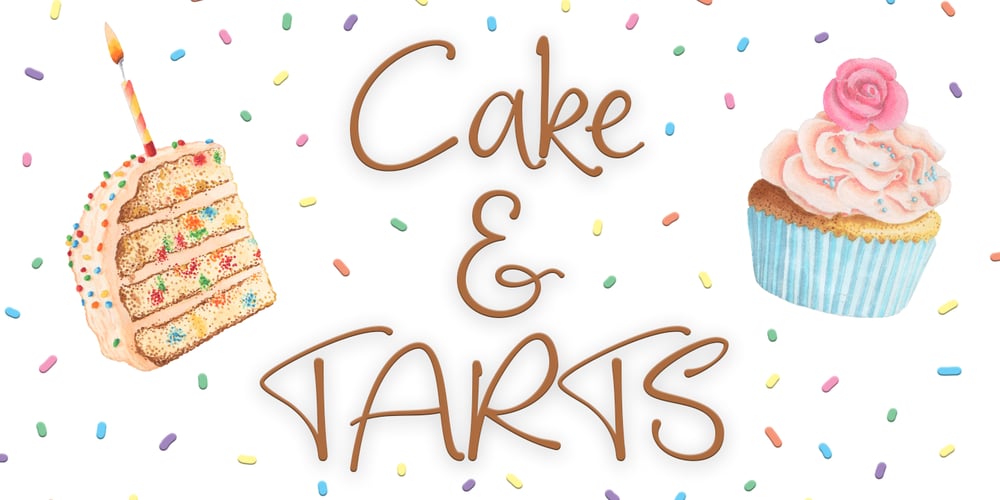
Cake and Tarts
Cake and Tarts font
Cake and Tarts Font Family was designed by Joanne Hewitt and published by Joanne Marie. Cake and Tarts contains 1 styles and family package options. For weekly freebies, follow me on Instagram @joannemarie_cmCake & TARTS is a cute handwriting font with lots of personality. The caps work so well together too.I’ve loved making hand lettered designs with it (in fact, that’s how I became to make the font – from my own hand lettering) and have shared some of those with you here. It’s perfect for anything casual. It can be used for a wide range of projects, such as logo designs, party & wedding invitations, t-shirt designs, signs, magazine design, greetings cards, poster design and much more!This casual handwriting script font is clear, smooth and easy to read, making it perfect for large amounts of text too! It has alternates, ligatures and international characters.